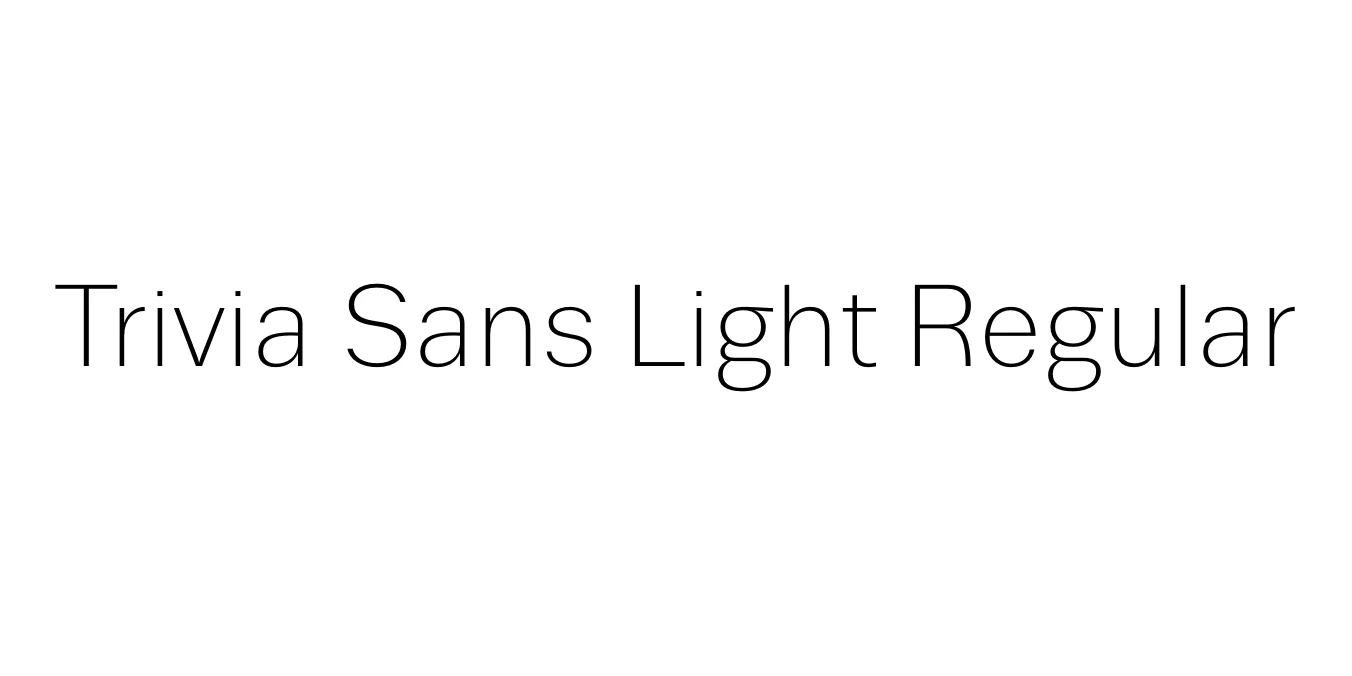
Trivia Sans Light Regular
Designed by František Štorm
Trivia Sans Light Regular is a distinguished member of the Trivia superfamily, meticulously crafted by František Štorm and released through Storm Type Foundry. This typeface was designed to offer a contemporary take on the humanist sans-serif tradition, bridging the gap between historical elegance and modern digital requirements. The Light weight specifically highlights the font's delicate architecture and refined stroke widths, providing a sophisticated look for high-end design projects.
As part of a comprehensive system that includes Serif and Slab variants, Trivia Sans maintains exceptional consistency across different media. Its open counters and balanced proportions ensure high readability in both print and screen environments. Whether used for corporate identity systems or minimalist editorial layouts, the font communicates a sense of professional clarity and subtle character without overwhelming the reader.
Trivia Sans Light Regular Best Uses
Ideal for professional branding that requires a clean and trustworthy appearance.
Perfect for high-fashion magazines and sophisticated layout designs.
Highly effective for minimalist user interfaces and readable body text.